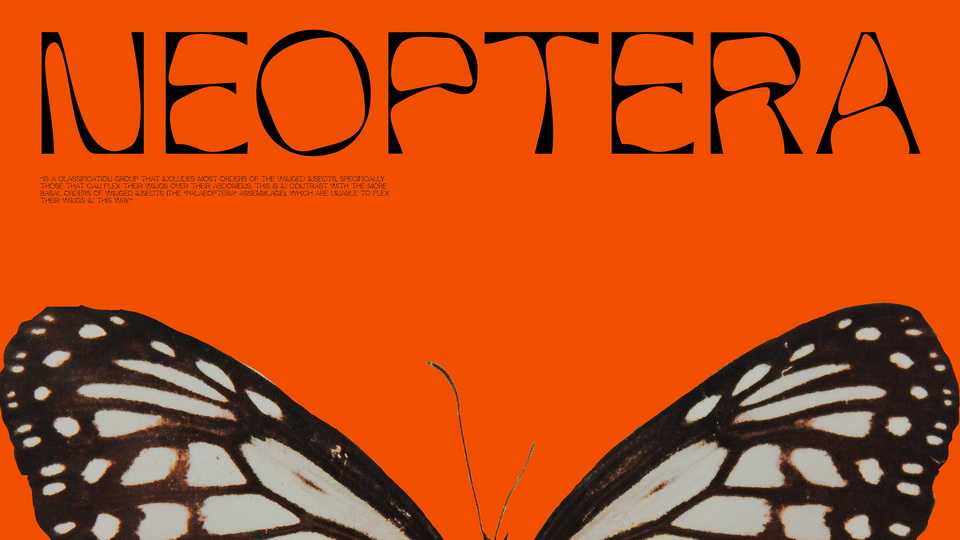
Download Neoptera font, an experimental typeface transformed using wing shapes. Neoptera is a contrasting font that has both curves and sharp, and smooth lines that resemble some kind of organic matter.
Designer: Máté Dorottya